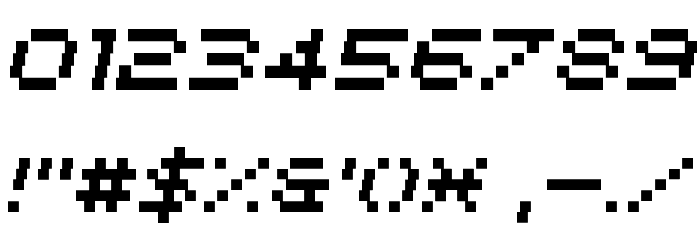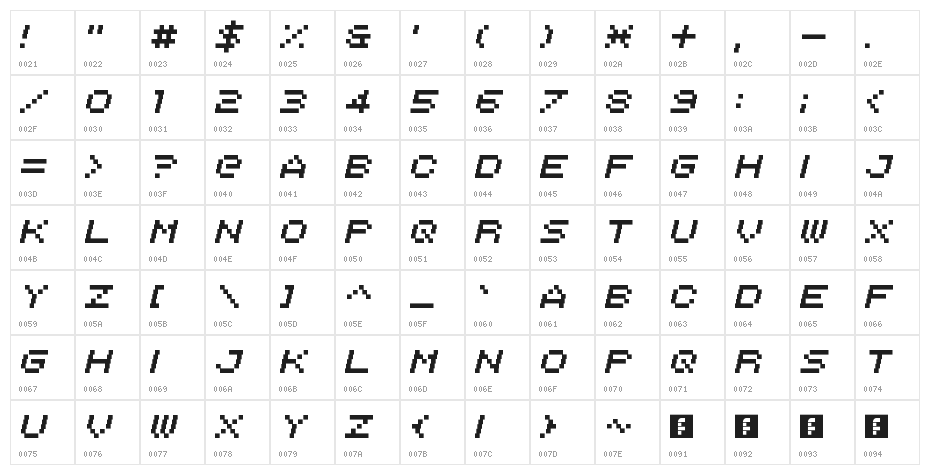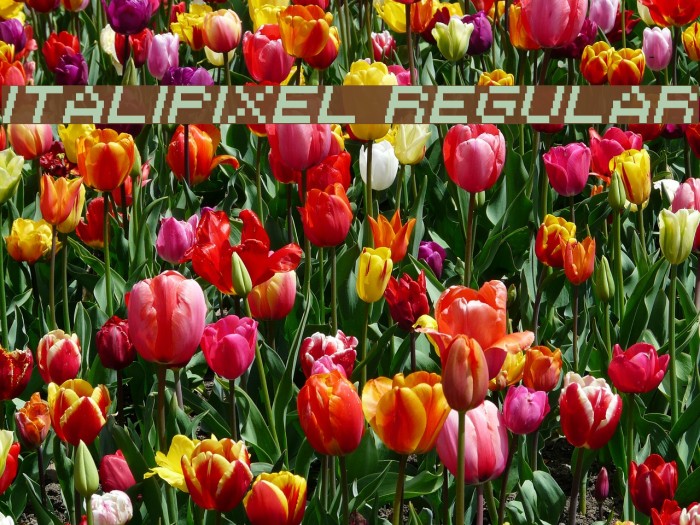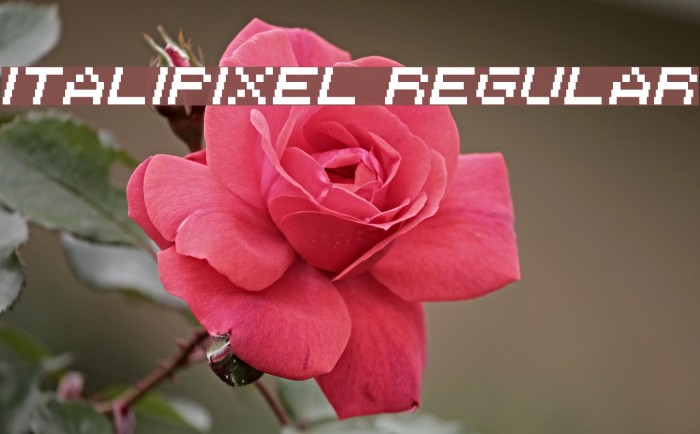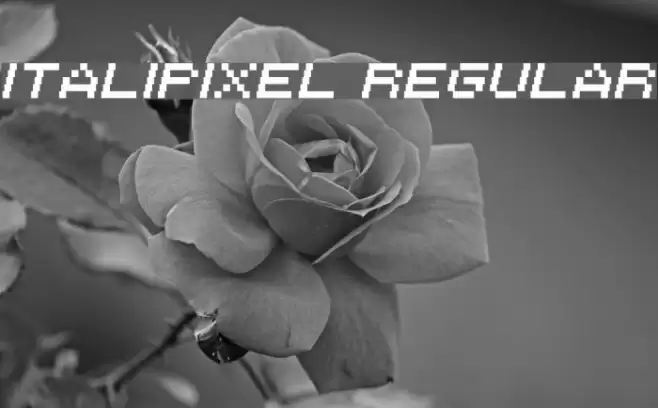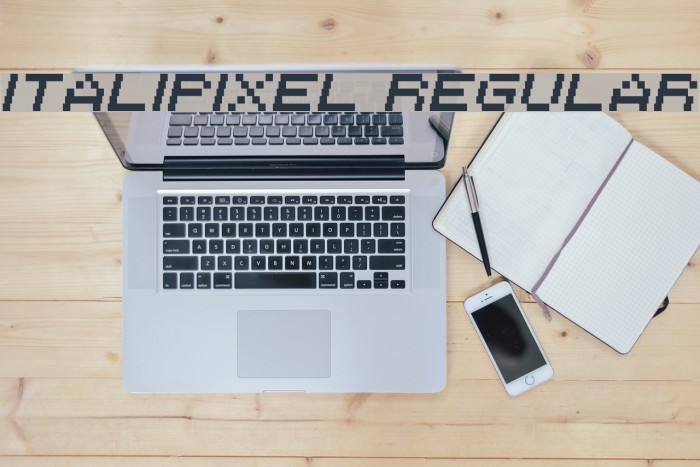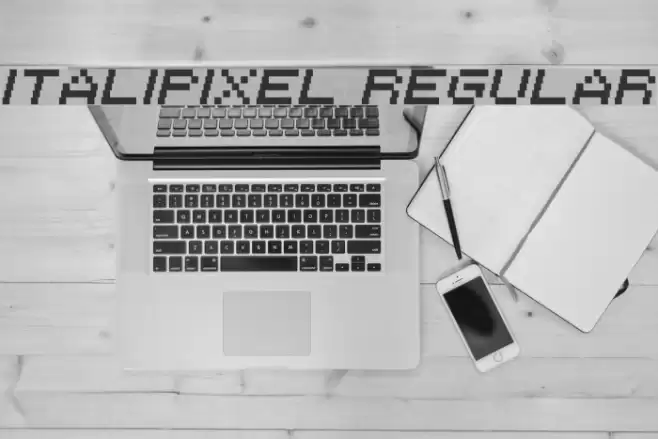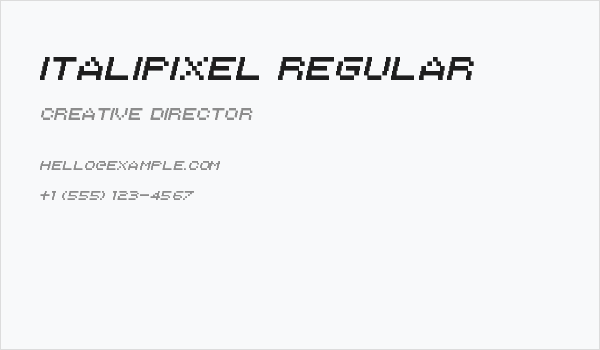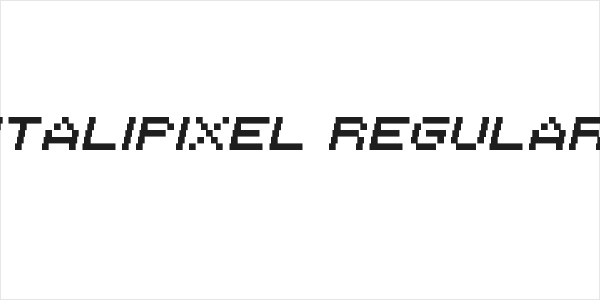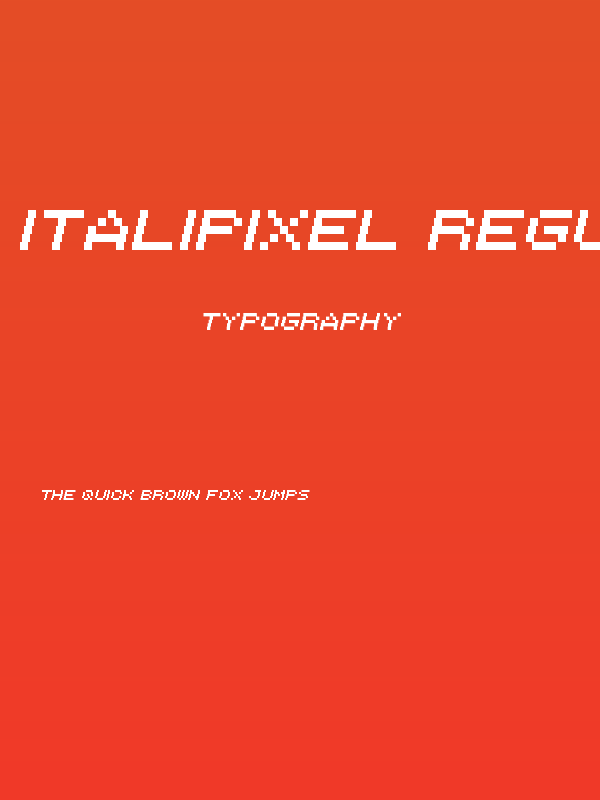
Italipixel Regular Font
Italipixel Regular Description
This font features a pixelated, italic style that gives it a distinct digital and retro appearance. The characters are composed of small square blocks, creating a unique texture reminiscent of early computer graphics or video games. The slanted orientation adds a dynamic feel, enhancing its modern yet nostalgic vibe. The uppercase and lowercase letters maintain consistent proportions, ensuring readability while preserving the pixelated aesthetic. Numbers and special characters are designed with the same pixelated structure, providing a cohesive look across all glyphs.
| Use Case | Logos, Headlines, Digital Art |
| Proposed Projects | Ideal for video game design, digital art projects, retro-themed posters, and tech-related branding. |